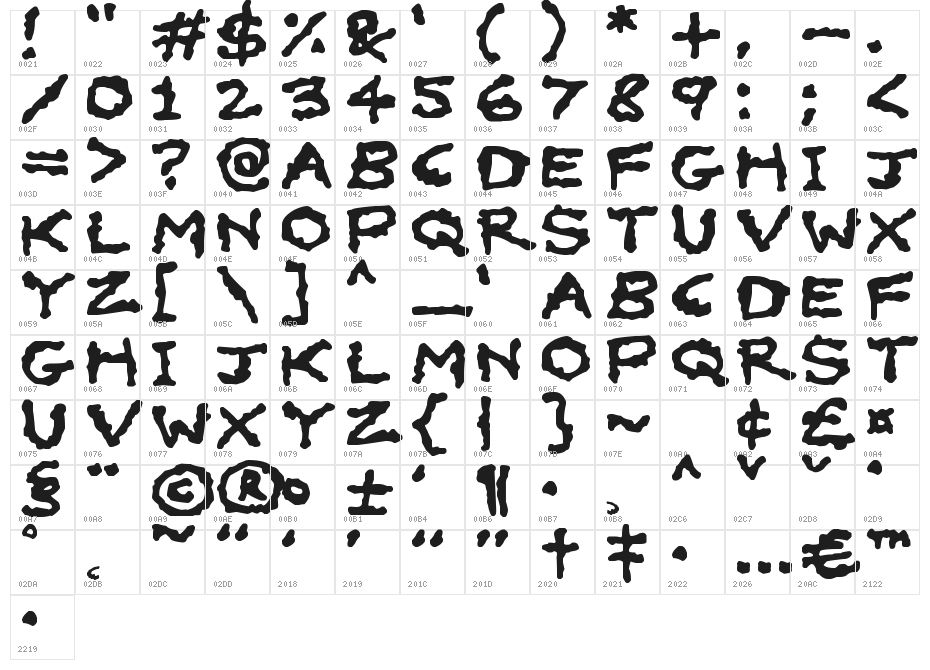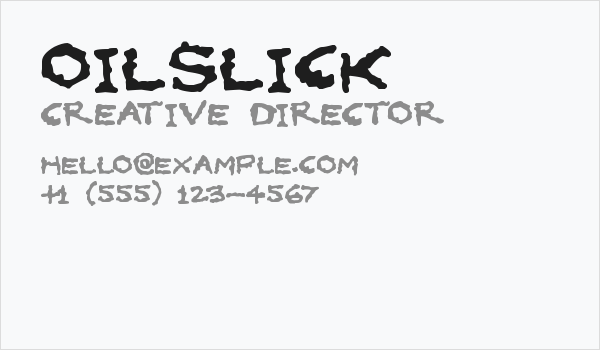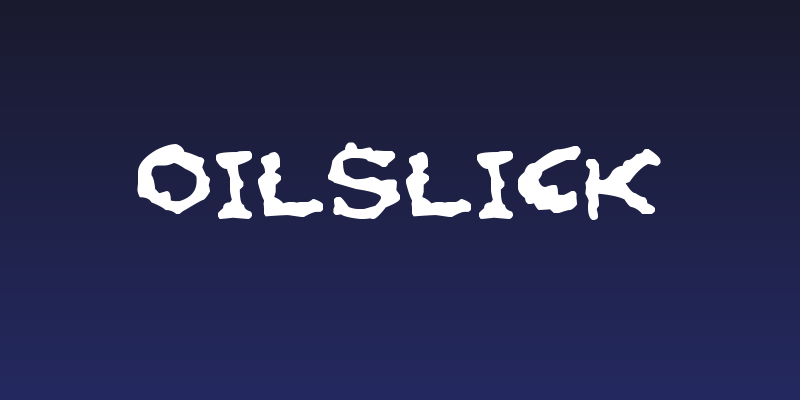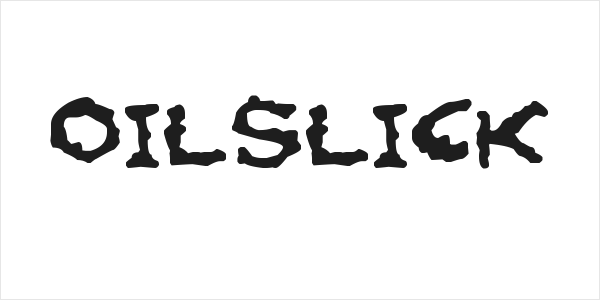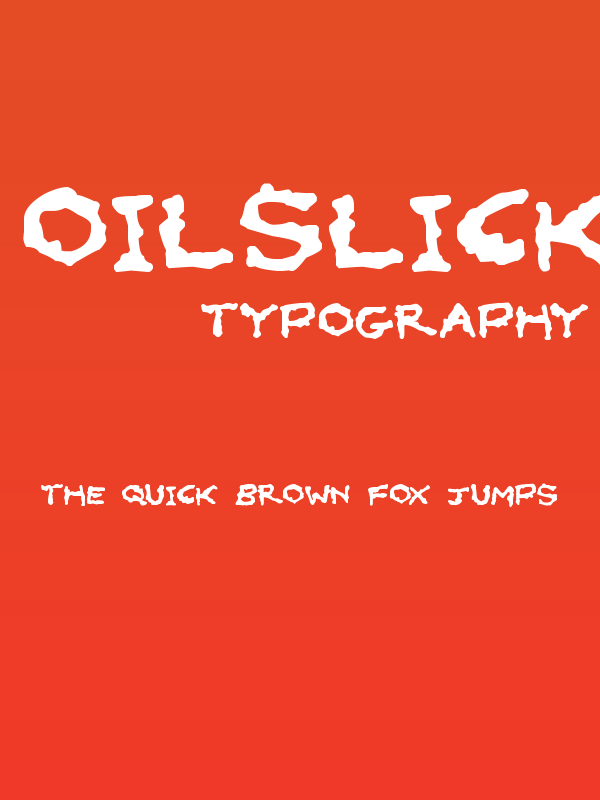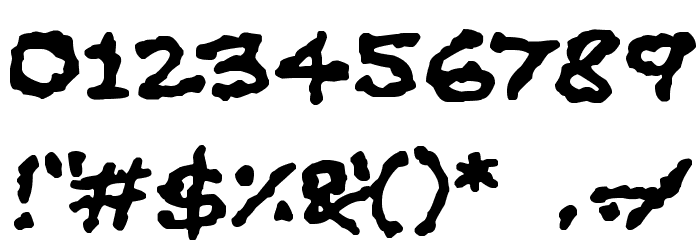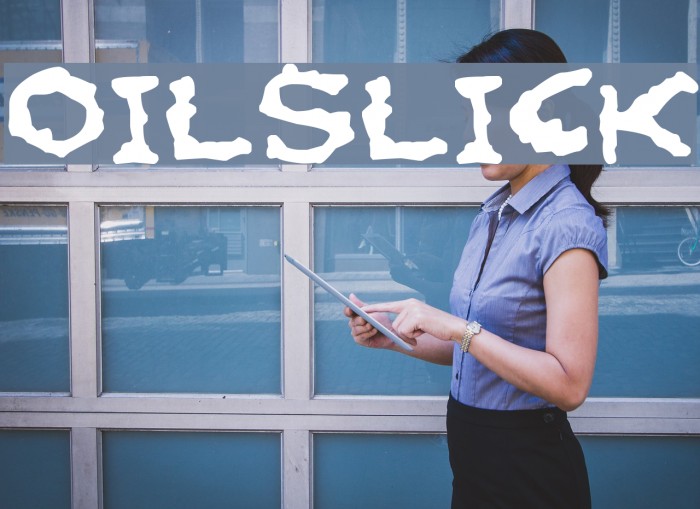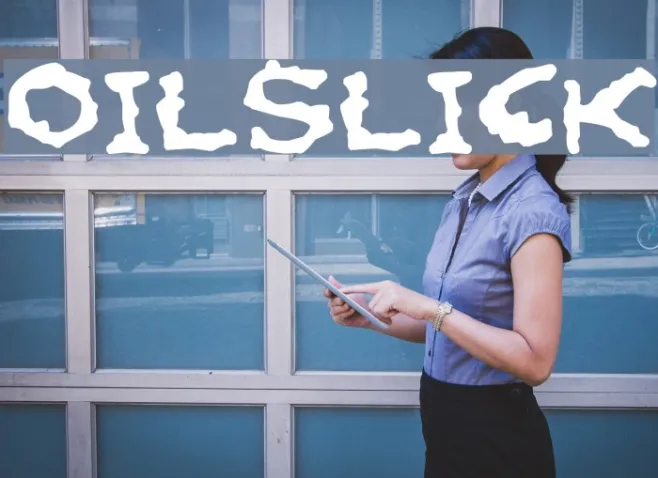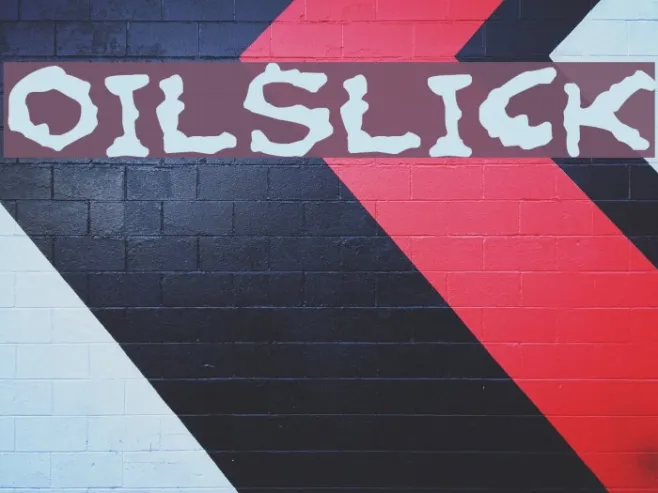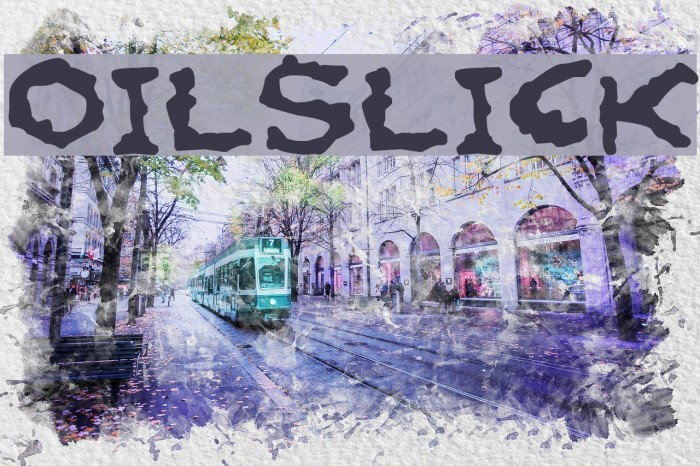
Oilslick Font
Oilslick Description
This font features a bold and rugged design, reminiscent of oil spills or ink blots. The characters have irregular, jagged edges that give them a unique, organic appearance. The uppercase and lowercase letters maintain a consistent style, with a slightly condensed form that enhances their boldness. Numbers and special characters follow the same aesthetic, ensuring a cohesive look across all glyphs. The font's distinctive style makes it stand out, ideal for projects that require a strong visual impact.
| Proposed Projects | Ideal for posters, album covers, branding for edgy or alternative products, and any design needing a bold statement. |